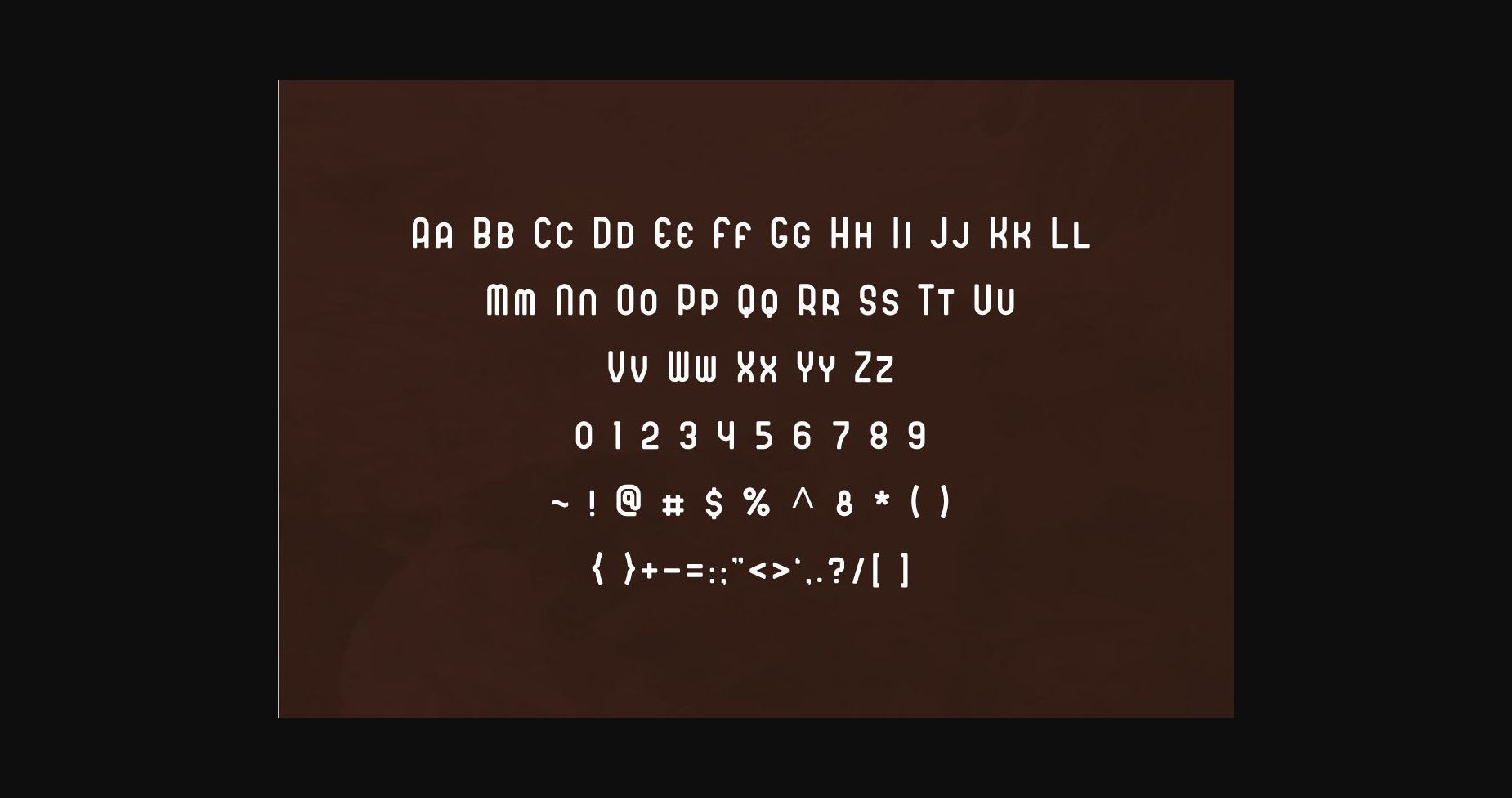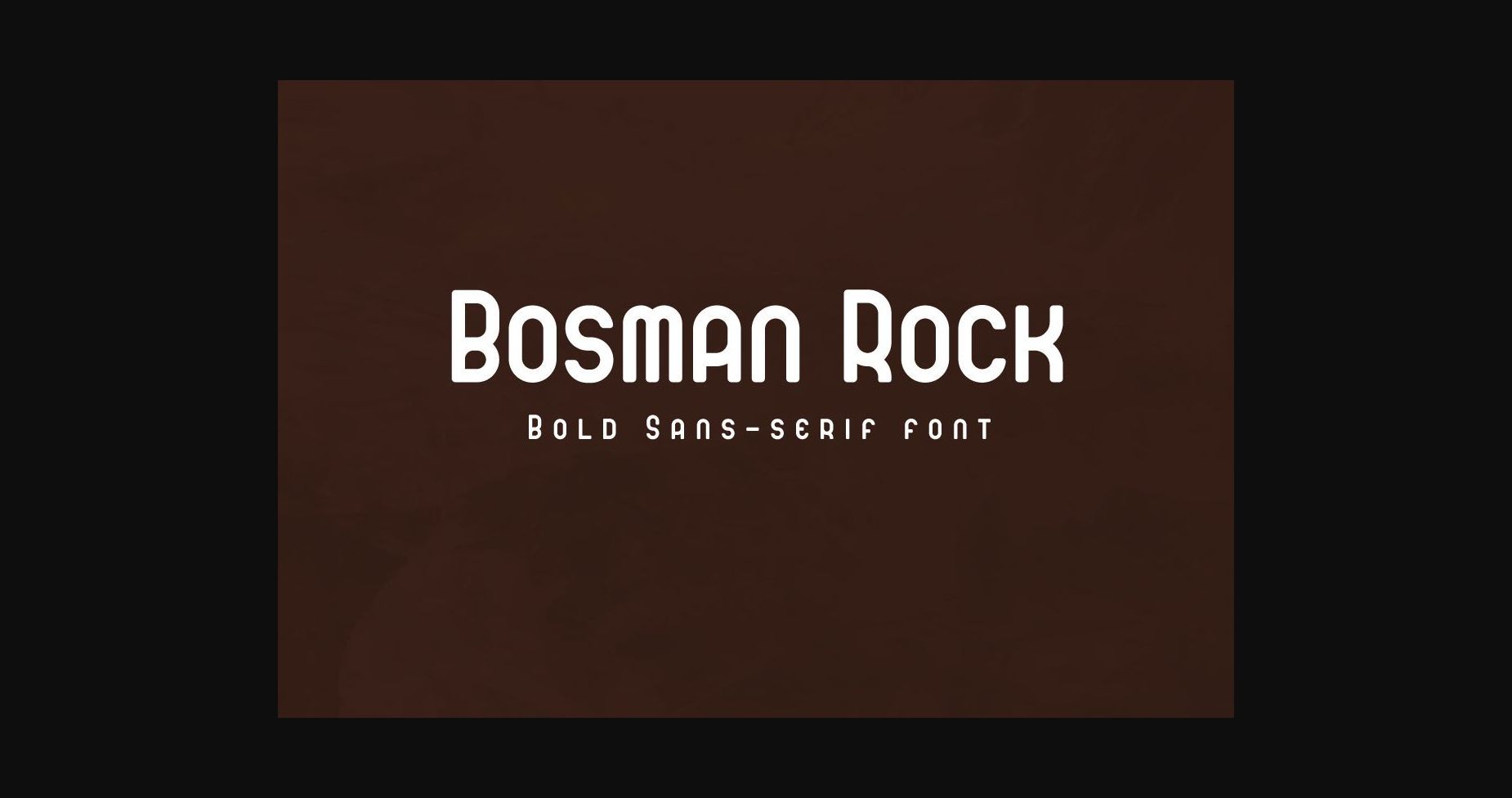
About Bosman Rock Font
Bosman Rock is a clean and assertive sans serif font. Its natural and unique style makes it incredibly fitting to a large pool of designs. The only limit is your imagination!